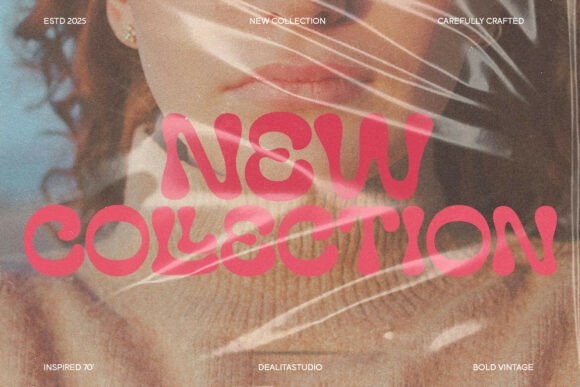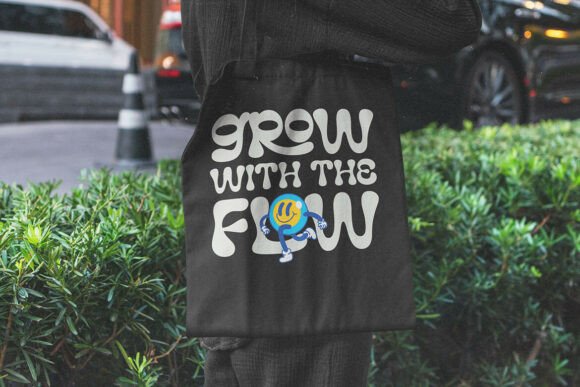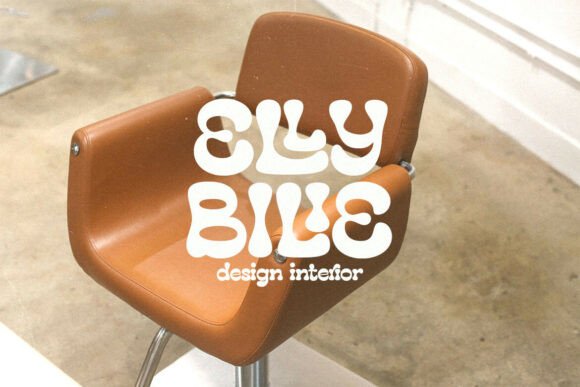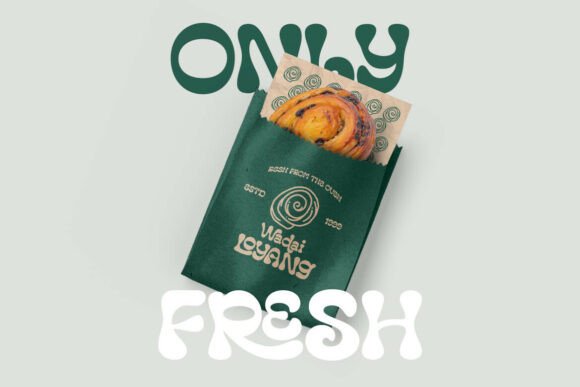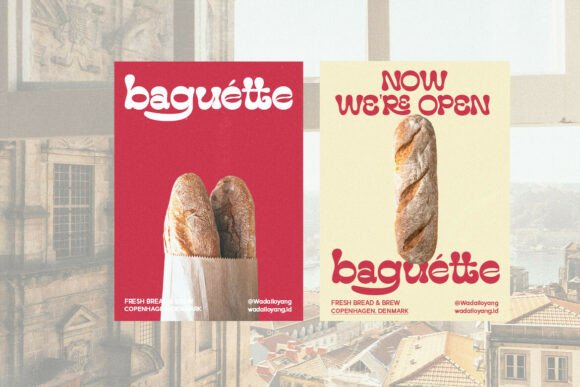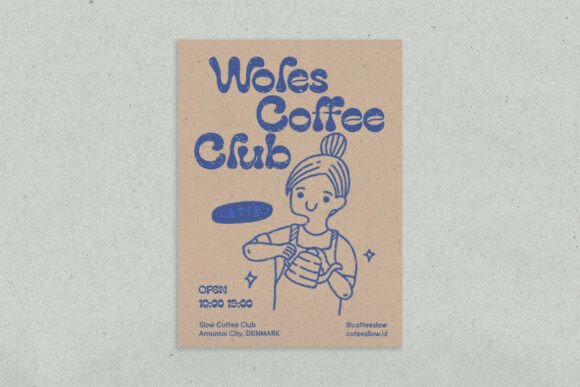
Introducing Galory Font: The Ultimate Retro-Inspired Display Font for Bold Designs
Are you looking for a font that embodies the vibrant spirit of the 70s with a modern twist? Look no further than Galory, a bold, retro-inspired display font that’s perfect for projects that want to stand out with nostalgia, energy, and style. With its strong curves, dynamic shapes, and funky personality, Galory is ideal for a wide range of design applications, from vintage packaging and retro branding to posters and statement designs.
A Font that Captures the Essence of the 70s
Galory is more than just a font – it’s a design statement. Its bold structure and unique character make it perfect for fashion labels, music branding, boutique products, and any project that dares to be different. The font’s retro-inspired design is reminiscent of the 1970s, an era known for its vibrant colors, bold patterns, and funky typography. However, Galory also has a modern twist that makes it suitable for contemporary designs.
Key Features of Galory Font
- Bold and eye-catching: Galory is a display font that’s designed to grab attention. Its bold structure and dynamic shapes make it perfect for headlines, titles, and statements.
- Retro-inspired with a modern twist: Galory captures the essence of the 70s with its funky personality and strong curves, but also has a modern flair that makes it suitable for contemporary designs.
- Versatile: Galory is perfect for a wide range of design applications, from vintage packaging and retro branding to posters and statement designs.
- Unique character: Galory has a unique character that sets it apart from other fonts. Its bold structure and dynamic shapes make it perfect for fashion labels, music branding, boutique products, and any project that dares to be different.
Use Cases for Galory Font
Galory is a versatile font that can be used in a variety of design applications. Here are some use cases where Galory shines:
- Vintage packaging: Galory is perfect for creating vintage-inspired packaging designs that evoke a sense of nostalgia and retro charm.
- Retro branding: Galory’s retro-inspired design makes it ideal for rebranding or creating a new brand identity with a vintage twist.
- Posters and statement designs: Galory’s bold structure and dynamic shapes make it perfect for creating eye-catching posters and statement designs.
- Fashion labels: Galory’s unique character and bold structure make it perfect for fashion labels that want to create a bold and stylish brand identity.
- Music branding: Galory’s funky personality and retro-inspired design make it ideal for music branding and creating a bold and energetic brand identity.
Why Choose Galory Font?
Galory is more than just a font – it’s a design statement. Here are some reasons why you should choose Galory for your next design project:
- Stand out from the crowd: Galory’s bold structure and unique character make it perfect for projects that want to stand out with nostalgia, energy, and style.
- Confidence and style: Galory gives your design the retro flair and confidence it deserves, making it perfect for projects that want to make a statement.
In conclusion, Galory is a bold, retro-inspired display font that’s perfect for designers and crafters who want to create bold and stylish designs. With its strong curves, dynamic shapes, and funky personality, Galory is ideal for a wide range of design applications, from vintage packaging and retro branding to posters and statement designs. Whether you’re reviving a classic brand or launching a bold new identity, Galory gives your design the retro flair and confidence it deserves.